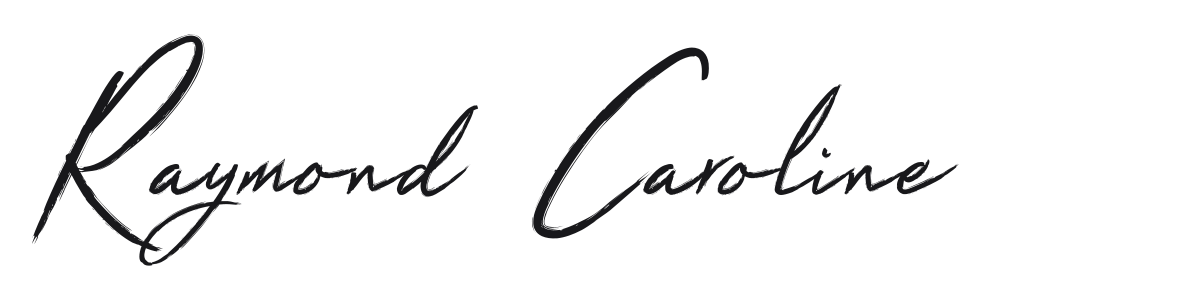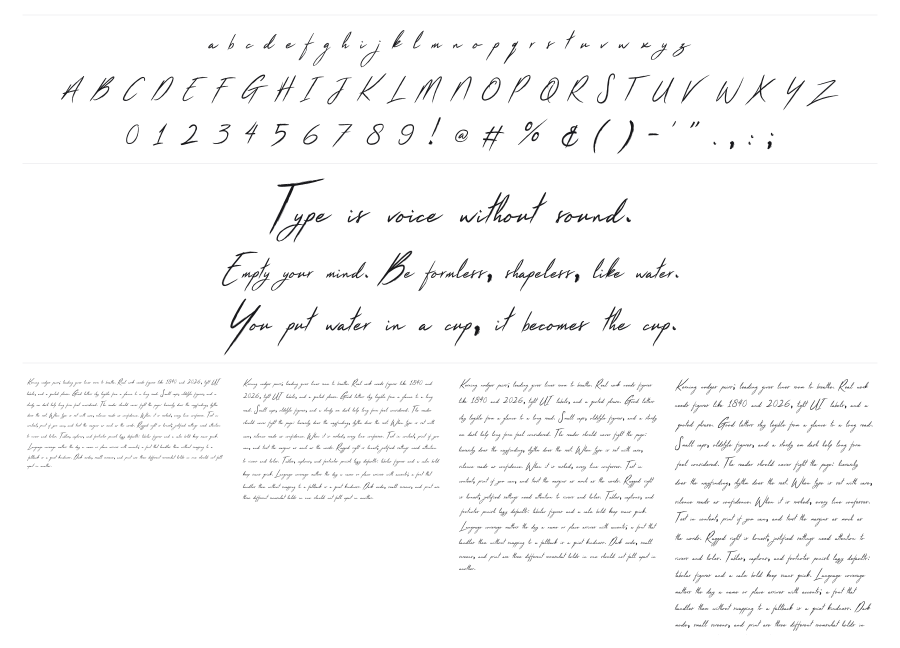
Raymond Caroline
Raymond Caroline is an expressive brush script with authentic handwritten energy and fluid connected strokes. High contrast between thick and thin strokes gives it the feel of a real ink brush, reinforced by variable baseline movement and looping ascenders. It includes end-swash alternates for lowercase letters, letting you tailor the finish of each word.